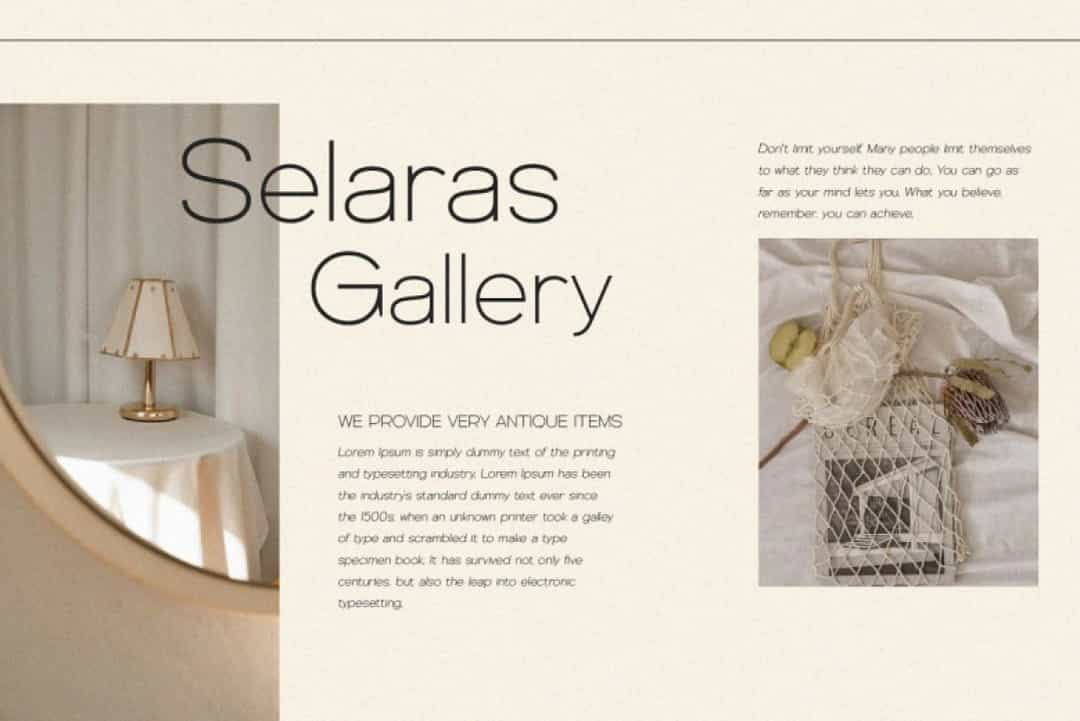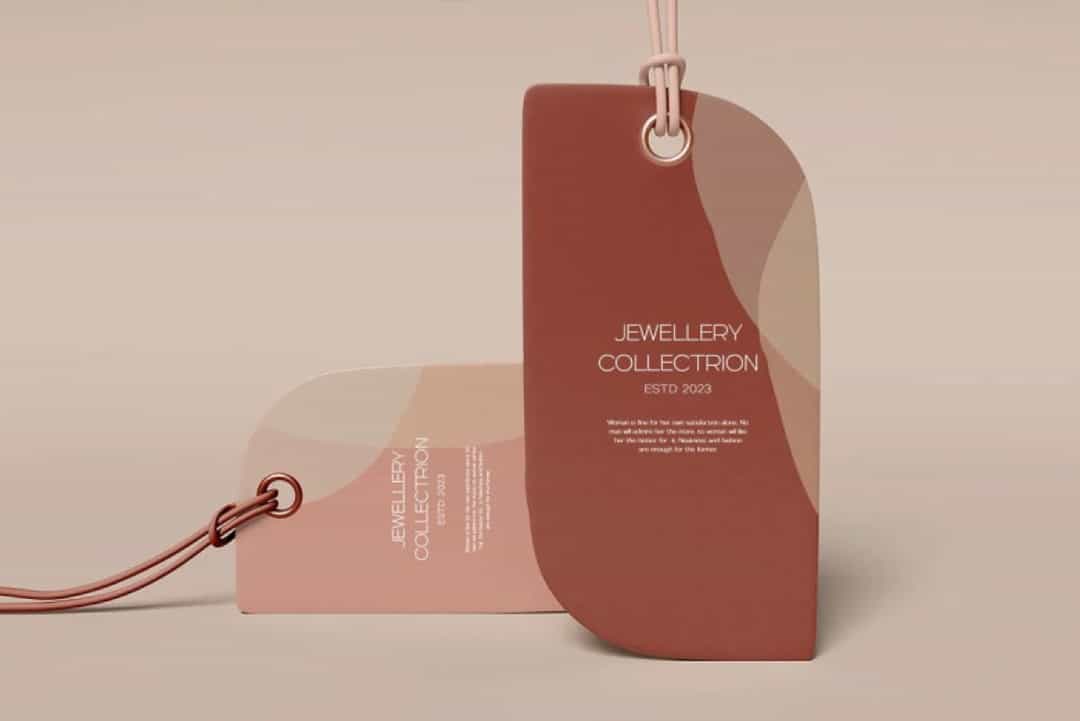
Rosting Rose is a contemporary sans serif font with an exquisite design that makes it ideal for long text branding, logotypes and branding prints, among other purposes. Meticulously measured geometric elements help make this font appear balanced while remaining simple in appearance – all making Rosting Rose one of the most beloved and sought-after fonts of 2023!